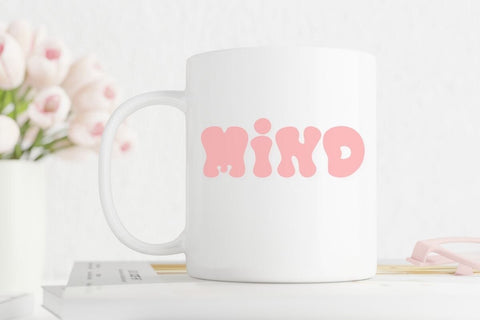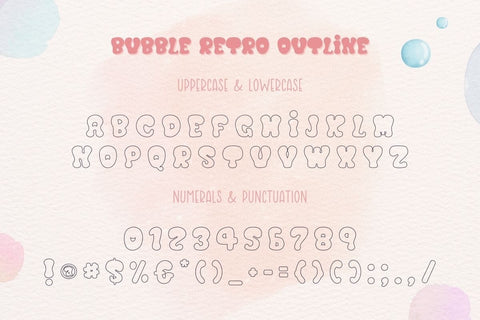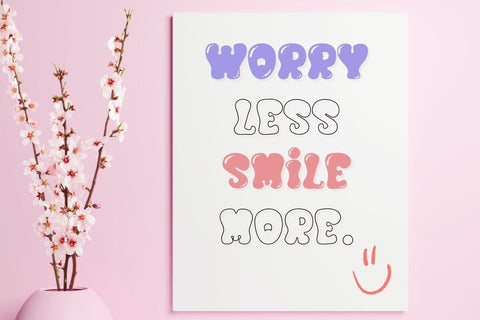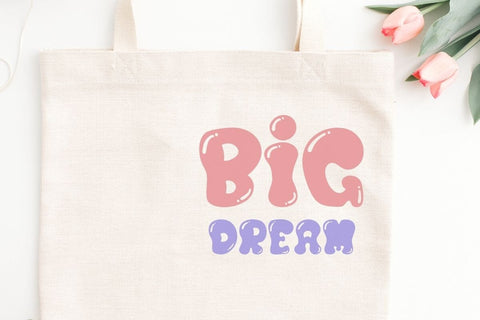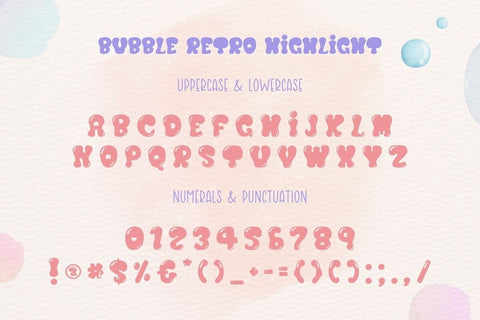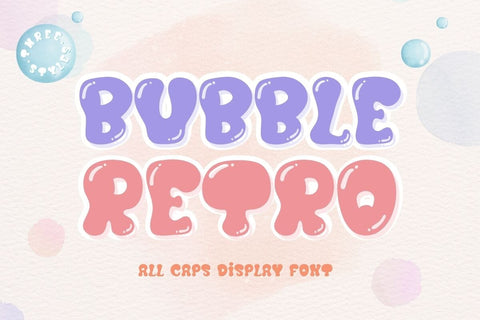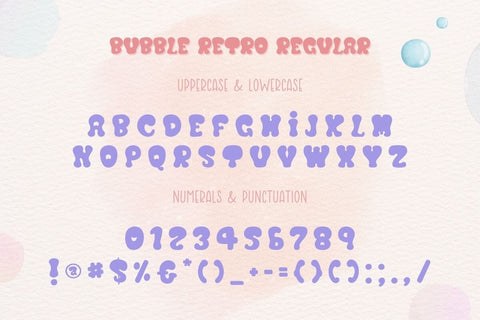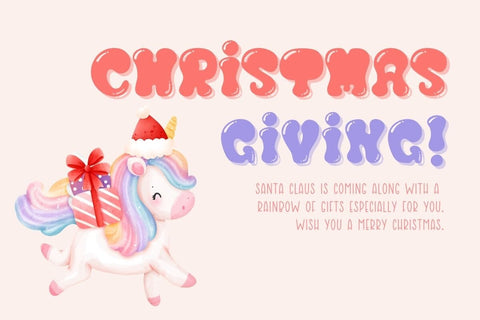
Bubble Retro - Cute Display Font
Bubble Retro is a cute display font. This set has 3 types of fonts: Regular, Highlight, and Outline. You will enjoy and have fun with your designs. Perfect for creating a wide variety of new designs to match products such as banners, content, mugs, cards, shirts, stationery, social media posts, and more!